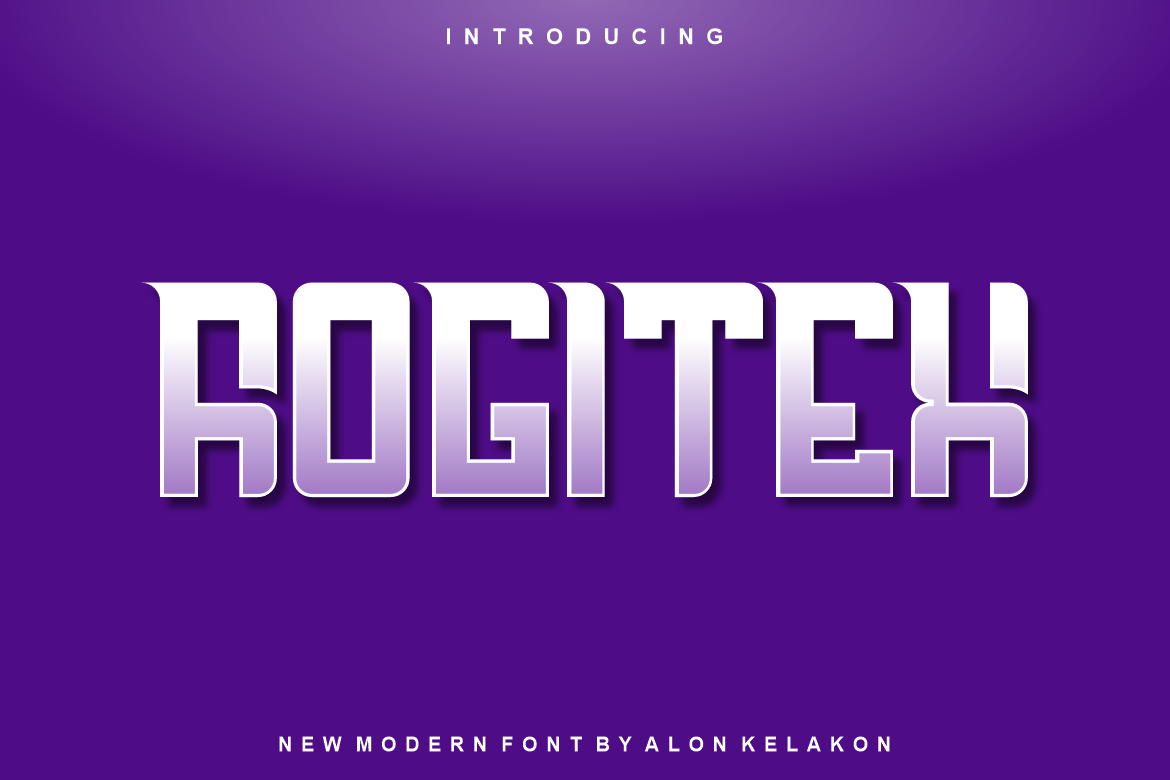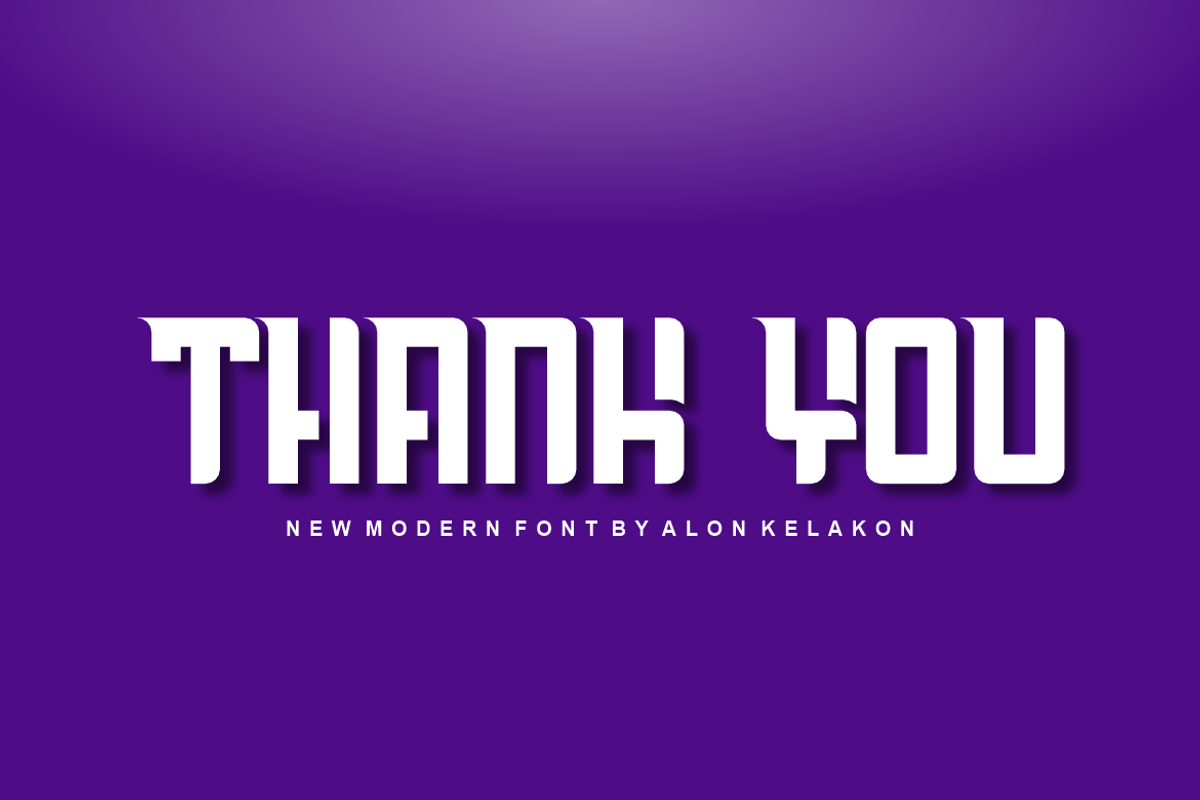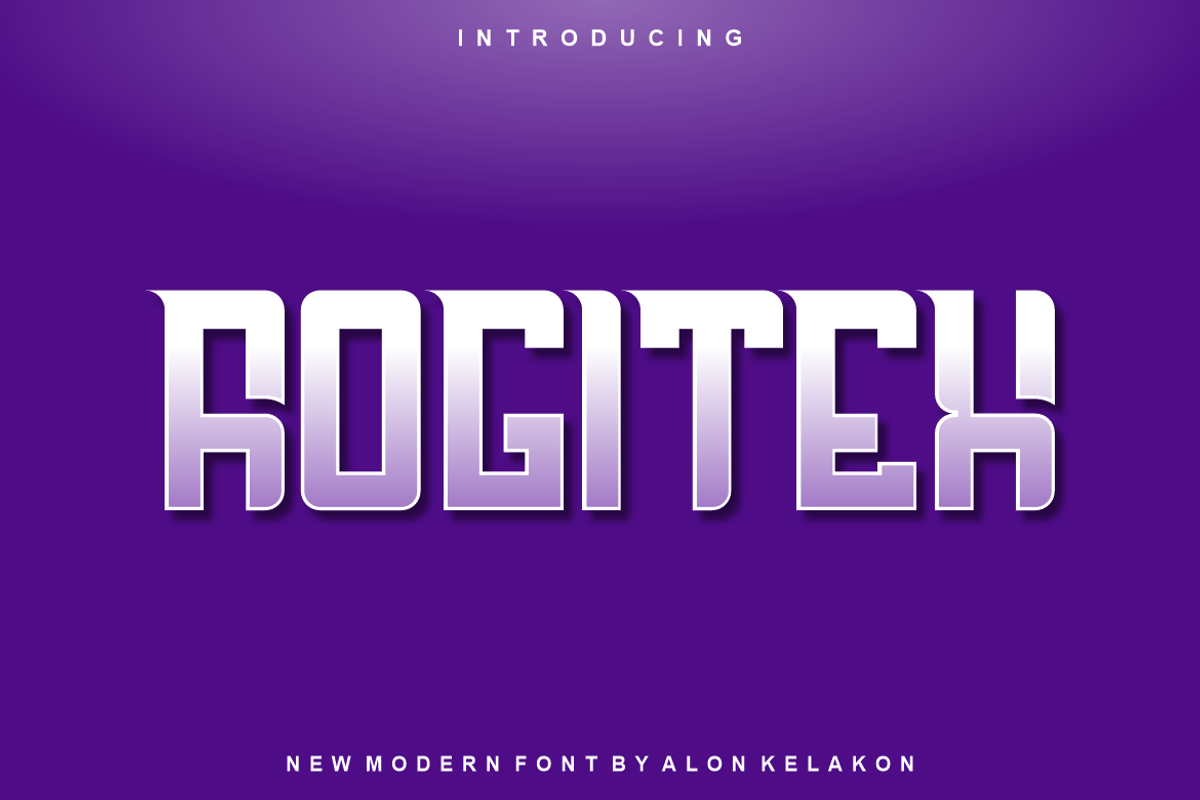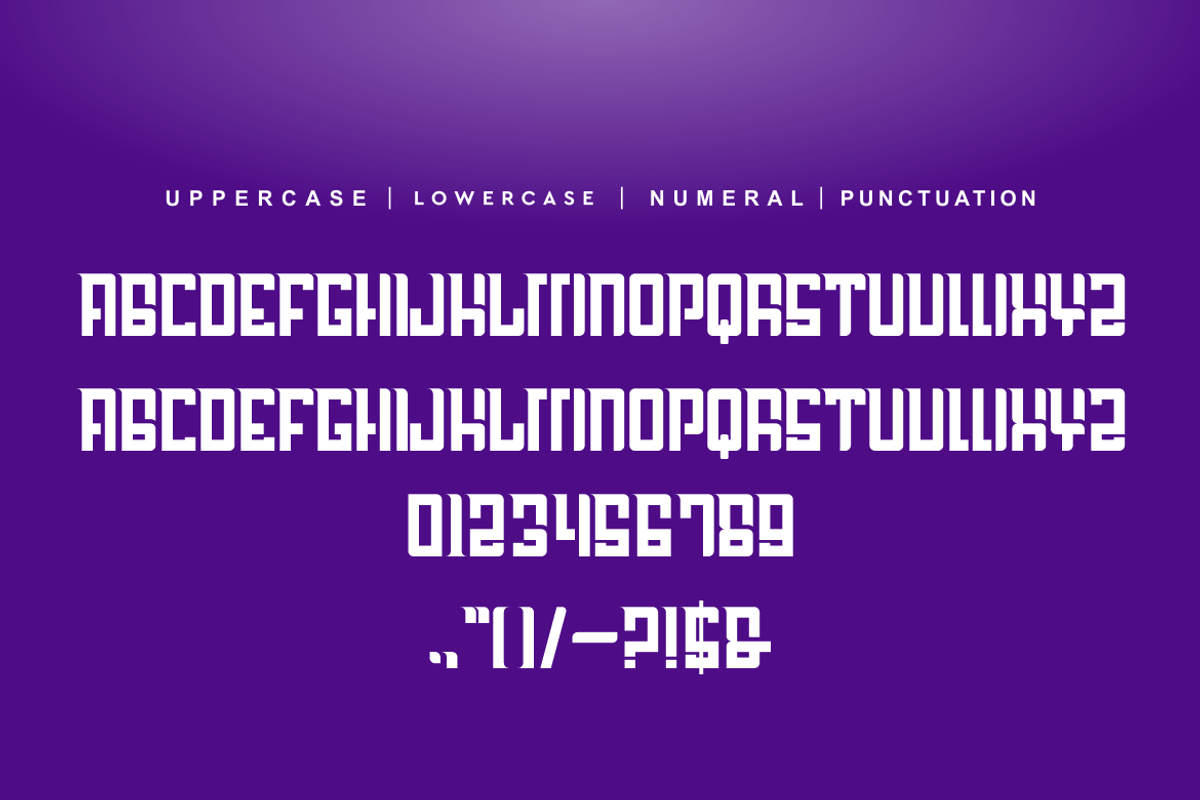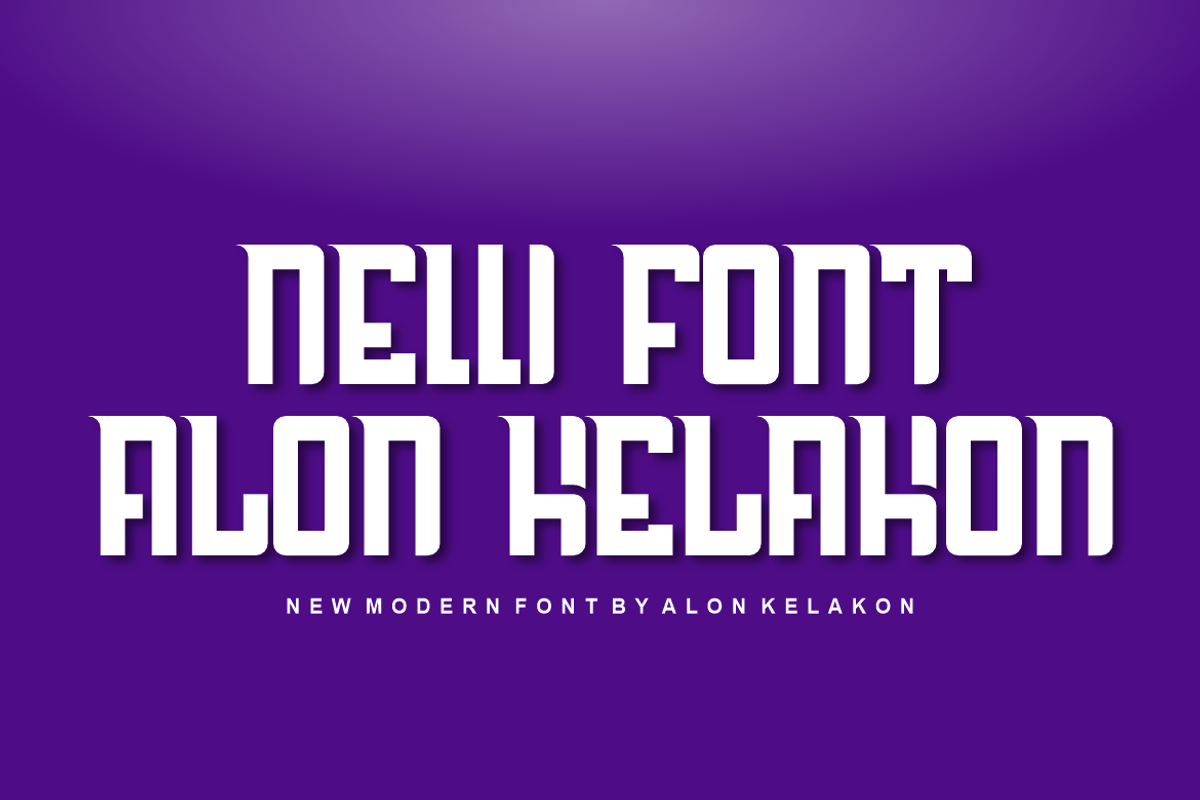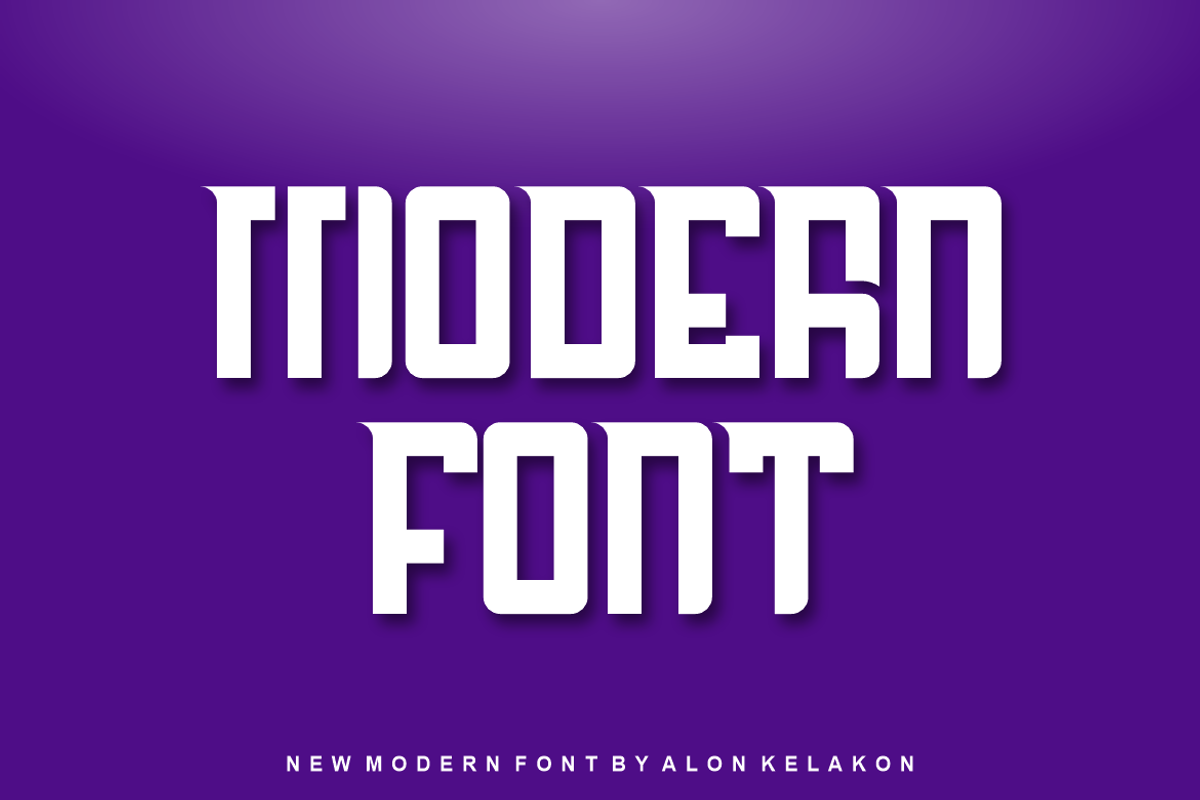
Rogite Font
Rogite Font Font is unique . Ready to use for your design like labeling, clothing, movie sceen, poster, movie title, gigs, album covers, logos, and much more.